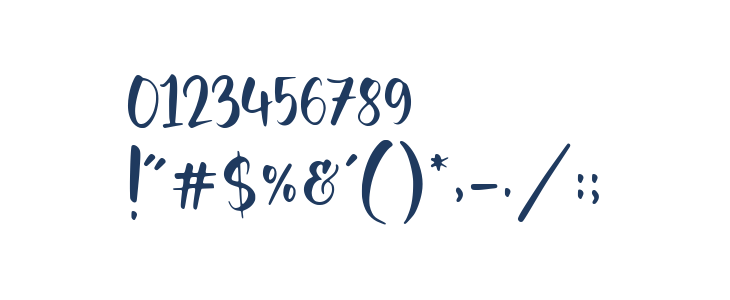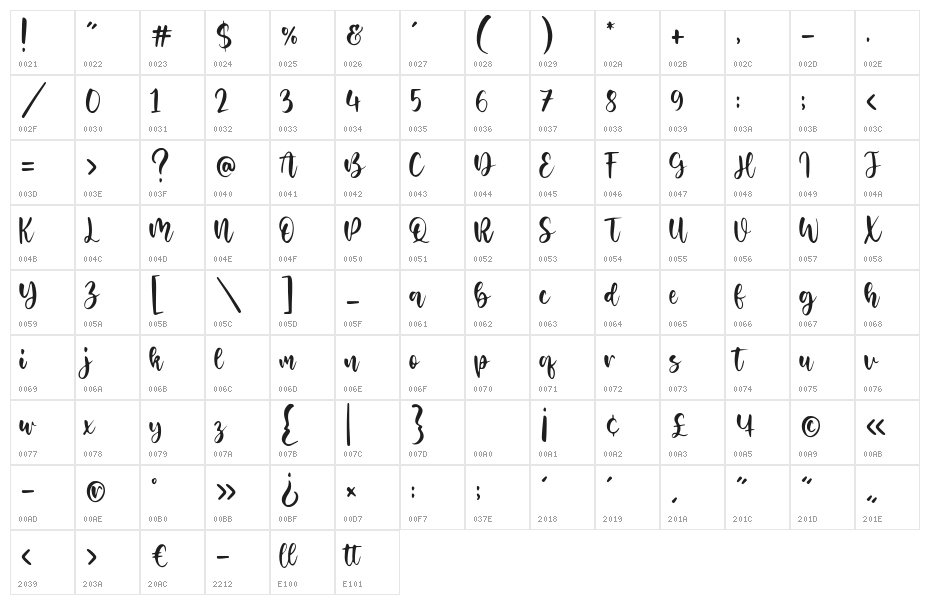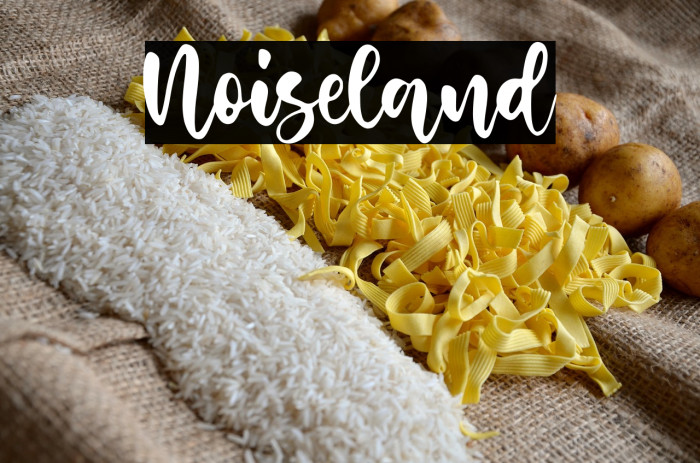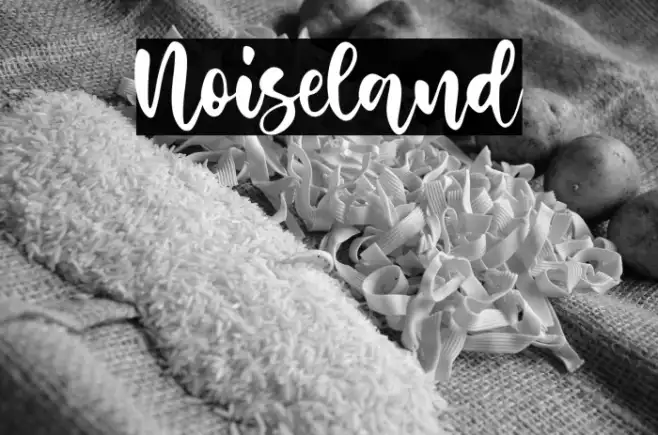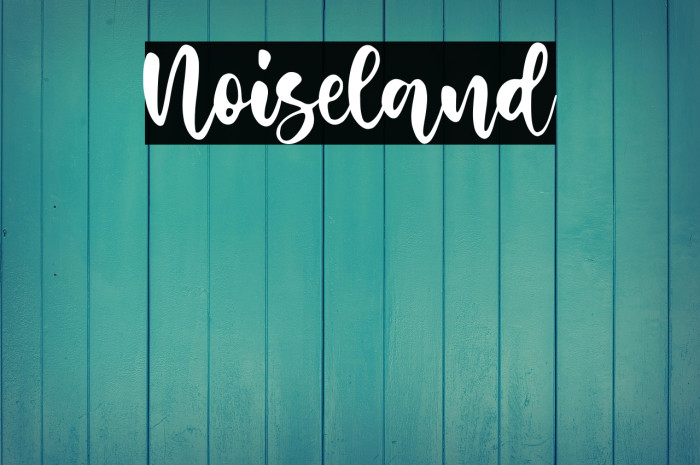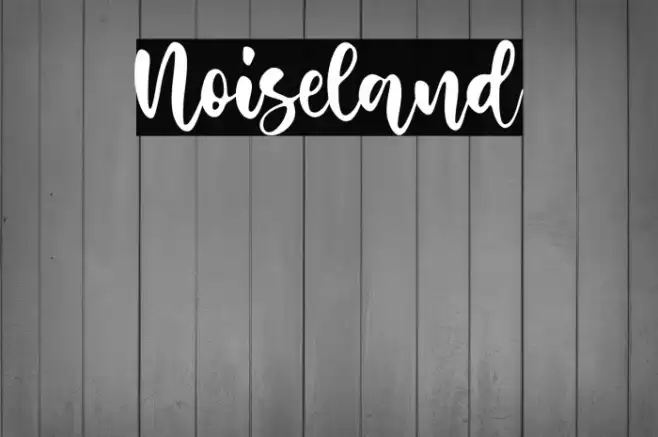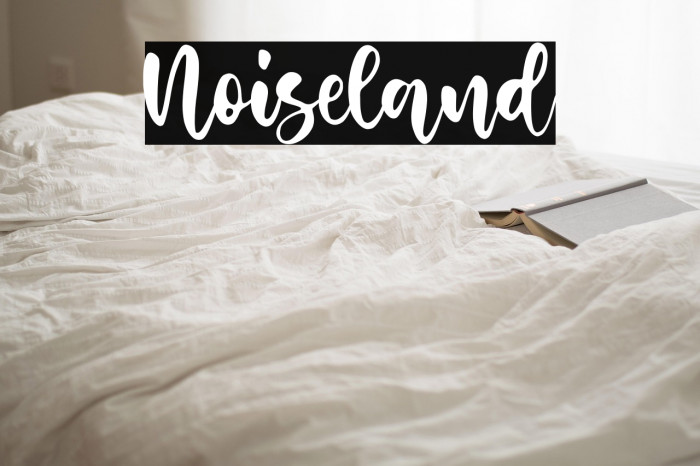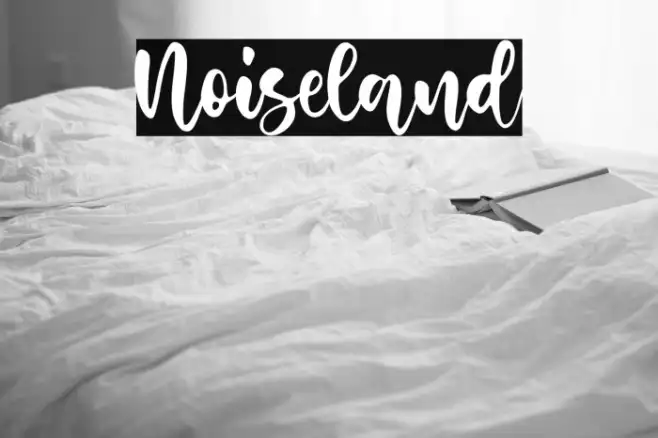
Noiseland Font
Noiseland Description
This font features a lively and expressive handwritten style with a modern flair. The characters are bold and fluid, showcasing a playful yet elegant appearance. The uppercase letters are slightly larger and more pronounced, while the lowercase letters maintain a consistent flow with smooth curves and rounded edges. Numbers and special characters are designed to match the overall aesthetic, providing a cohesive look. The font's brush-like strokes give it a dynamic and artistic feel, making it suitable for creative projects that require a personal touch.